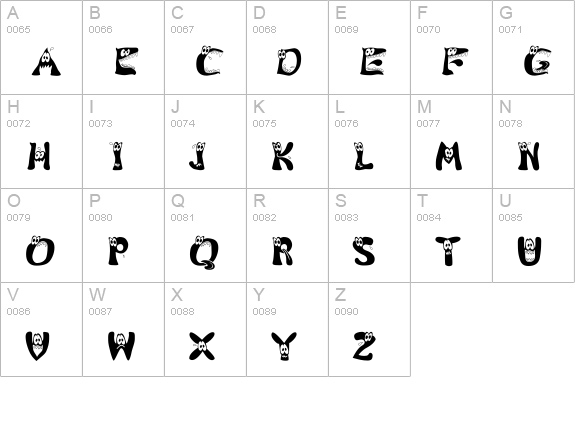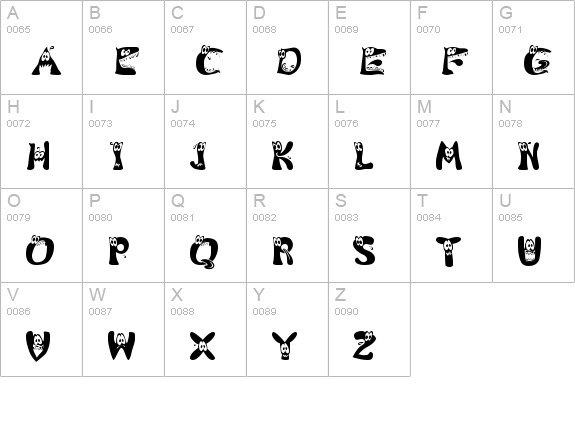
KAMonster Font Details
Introducing KAMonster font, a captivating and unique typeface that will add a touch of excitement and creativity to your designs. This font is bound to catch the eye with its bold and quirky letterforms, making it perfect for attention-grabbing headlines, posters, logos, and more. KAMonster font is not only visually stunning, but it also offers a sense of playfulness and whimsy that will bring your projects to life. Its distinctive and unconventional characters possess a certain charm that is sure to leave a lasting impression on your audience. One of the best features of KAMonster font is that it is completely free! Yes, you heard that right. This incredible font can be freely downloaded at FontsMarket.com, allowing you to enhance your designs without breaking the bank. Whether you are a professional designer or a hobbyist, this free font is a valuable asset that will elevate your creative projects to new heights. The versatility of KAMonster font is another reason why it stands out from the crowd. It can be used across various design applications, from print materials such as brochures and flyers to digital platforms such as websites and social media graphics. No matter the project, KAMonster font will always add that extra touch of character and personality. With its wide range of uppercase and lowercase letters, as well as numerals and punctuation marks, KAMonster font offers endless possibilities for customization. You can mix and match different letterforms to create unique and eye-catching combinations, allowing your designs to stand out from the rest. Don't miss out on the opportunity to download KAMonster font for free at FontsMarket.com. Take your designs to the next level with this captivating and versatile typeface that is sure to leave a lasting impact. Unleash your creativity and let KAMonster font be the driving force behind your next design endeavor.